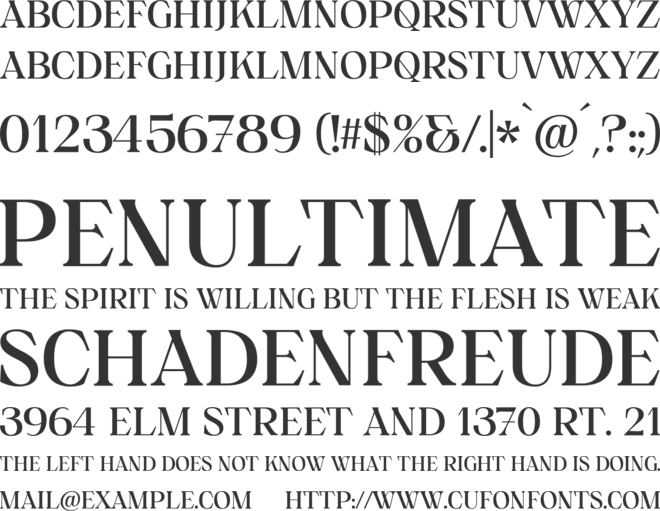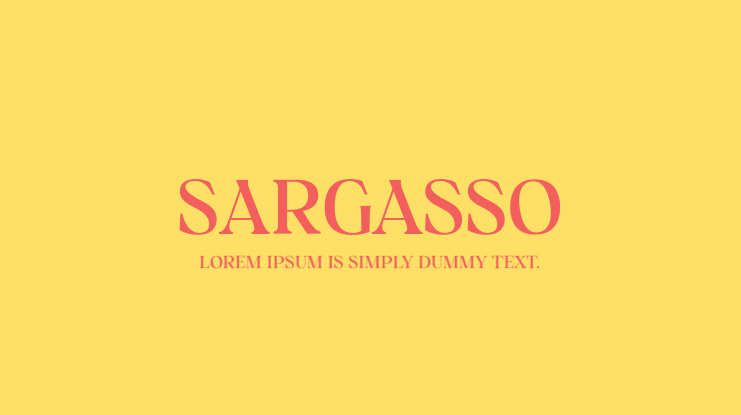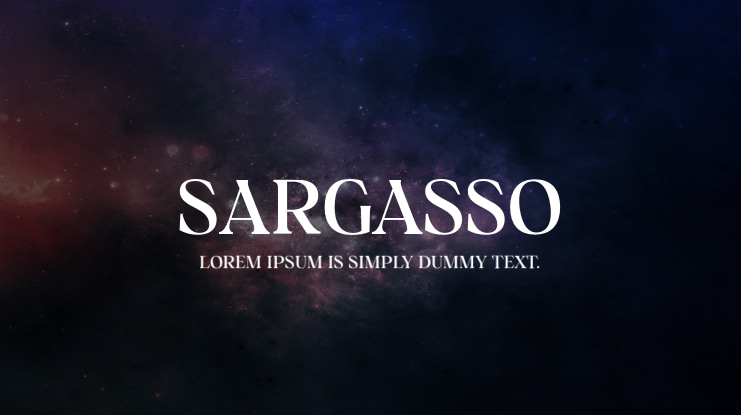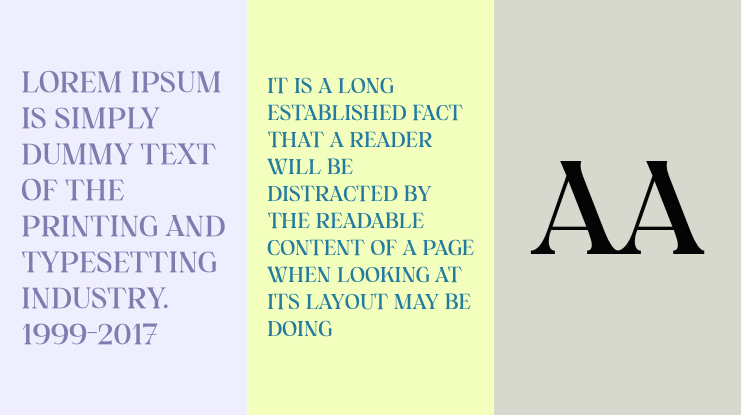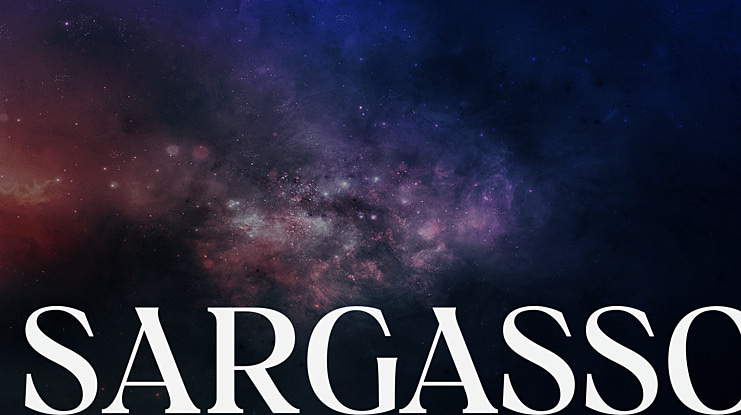
Sargasso Font Family
This is a modern classy display serif typeface. Beauty Serif font, clean classic and mindful , it combine in one font, use this font for anything beauty place for your logo, headline, cover book, magazine and many more. This font is PUA encoded which means you can access all of the glyphs and swashes with ease!